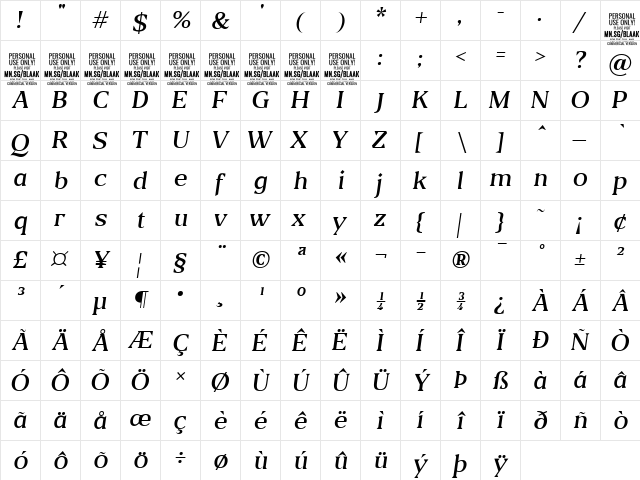
Blaak Light PERSONAL USE Italic Font Preview
Design Context for Blaak Light PERSONAL USE Typeface
Blaak Light PERSONAL USE takes a measured approach to typography — its balanced proportions and neutral character make it a reliable workhorse for both digital and print work. The slanted form adds forward momentum and visual energy. Its slender proportions lend an understated elegance to any composition.